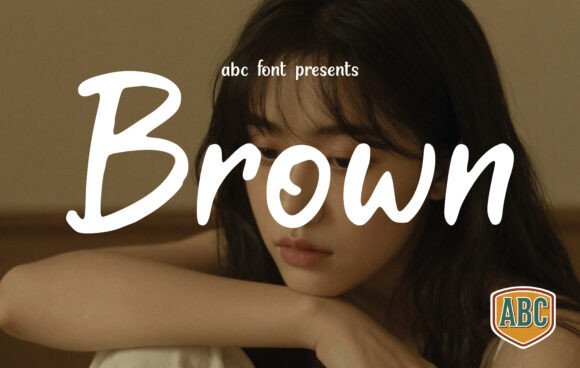
The BROWN Font: A Handcrafted Script Typeface for Authentic Design
I still remember the design project that led me to discover the BROWN font. I was working on a lifestyle blog for a client who wanted a digital diary feel, complete with a personal touch. I had spent hours scouring font libraries, but nothing seemed quite right – until I stumbled upon BROWN. Its effortless flow and natural texture immediately captured the essence of what my client was looking for. In this article, I’ll share my experience with the BROWN font, its unique characteristics, and how to make the most of it in your designs.
An Honest Review of BROWN Font
- ✨ The handcrafted script style gives it a personal, human touch that’s perfect for projects that require authenticity.
- ✅ The natural, slightly textured strokes evoke a sense of warmth and coziness.
- 💡 The rustic yet modern feel makes it incredibly versatile for various design applications.
While the BROWN font is exceptional, there are a few things to keep in mind:
- ⚠️ The font’s texture and character might not be suitable for very formal or corporate projects.
- 🤔 Some users may find the font’s quirks, such as slight inconsistencies in stroke width, require adjustment for certain design applications.
The Story Behind BROWN Font
The BROWN font was designed with the intention of capturing the effortless flow of a felt-tip marker. Its creator aimed to create a typeface that would bring a sense of warmth and authenticity to designs. The result is a font that’s perfect for projects that require a personal touch.
| Font Name | Brown Font |
| Author | ABC Font |
| What makes the BROWN font unique? | The BROWN font’s handcrafted script style and natural texture give it a unique, personal feel that’s perfect for designs that require authenticity. |
| Is the BROWN font suitable for digital and print designs? | Yes, the BROWN font is versatile and can be used for both digital and print designs, including lifestyle blogs, social media graphics, and product packaging. |
| Can I use the BROWN font for branding and logos? | Yes, the BROWN font can be used for branding and logos, especially for businesses that want to convey a sense of warmth and authenticity. |